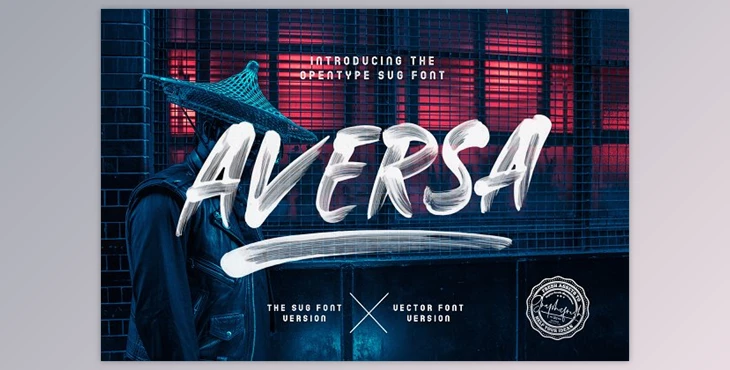
Aversa SVG Font + 27 Brushes 3689299: The font is created with brush strokes dipped in paint. Then, it was written onto top-quality paper and scanned using high-resolution. Ensure that it does not remove the paint component. It is ideal for packaging, posters, advertisements, headlines and branding, signboards, and anything you'd like with an urban style and feel.
- Aversa Typeface: Opentype is the primary font file containing all the realistic effects using oil.
- Aversa Typeface: Use this version for those who require the font in a standard vector format.
What is Aversa SVG Font?
Introducing the Aversa SVG Font – a stunning and versatile typeface that brings a dynamic and realistic appearance to your design projects. SVG fonts, or Scalable Vector Graphics fonts, use a combination of vector shapes and colors to create a more textured and vibrant look compared to traditional fonts.
The Aversa SVG Font offers a modern and visually captivating design, with each character crafted to perfection. SVG technology allows for intricate details, color variations, and a lifelike texture, providing a unique and eye-catching element to your typographic compositions.
Whether you're working on branding, graphic design, or any creative endeavor, the Aversa SVG Font is designed to make a bold statement. Elevate your projects with this innovative and expressive font, bringing a touch of sophistication and contemporary style to your designs.